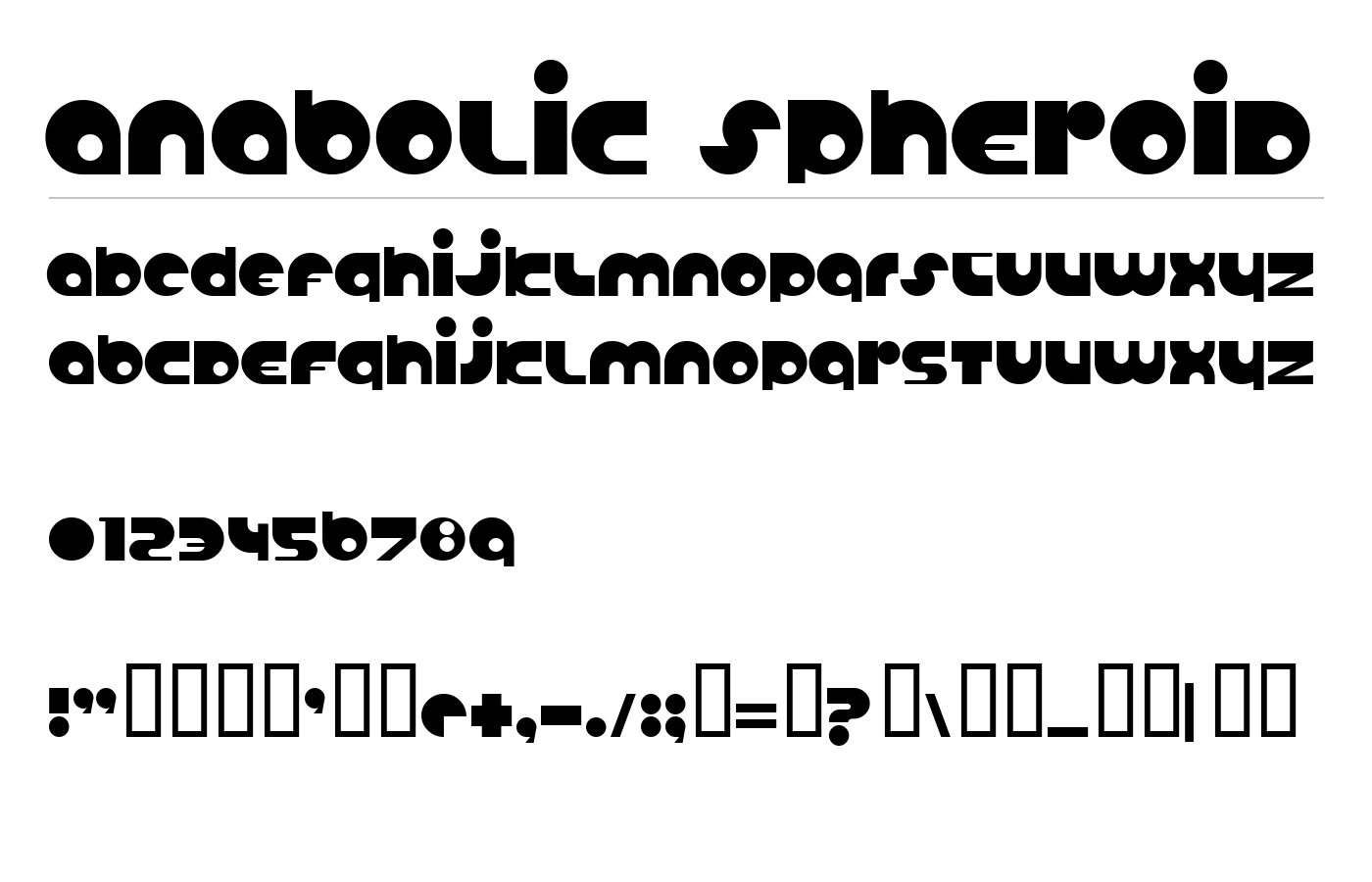
Anabolic Spheroid is a bold, geometric sans serif font with a strong, modern presence defined by its thick, rounded letterforms and consistent stroke weight. Its playful yet sturdy shapes and high x-height create excellent readability for headlines and branding, making it ideal for creative, tech, and futuristic designs. This font works best in eye-catching logos, posters, and editorial projects where a distinct, contemporary look is desired.
Anabolic Spheroid Font